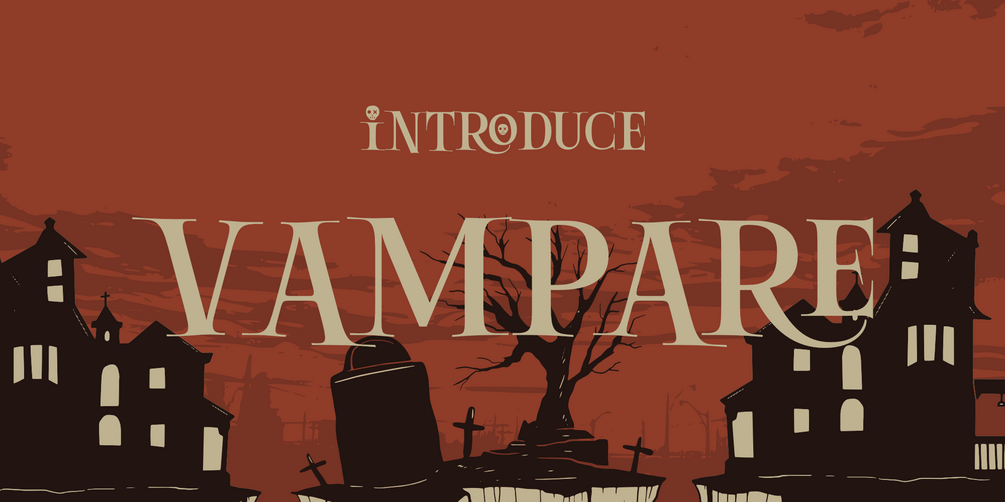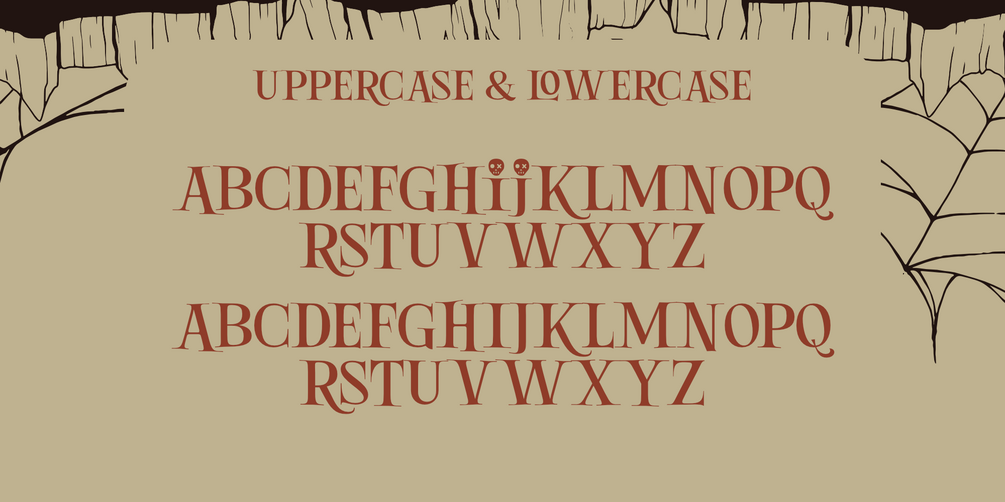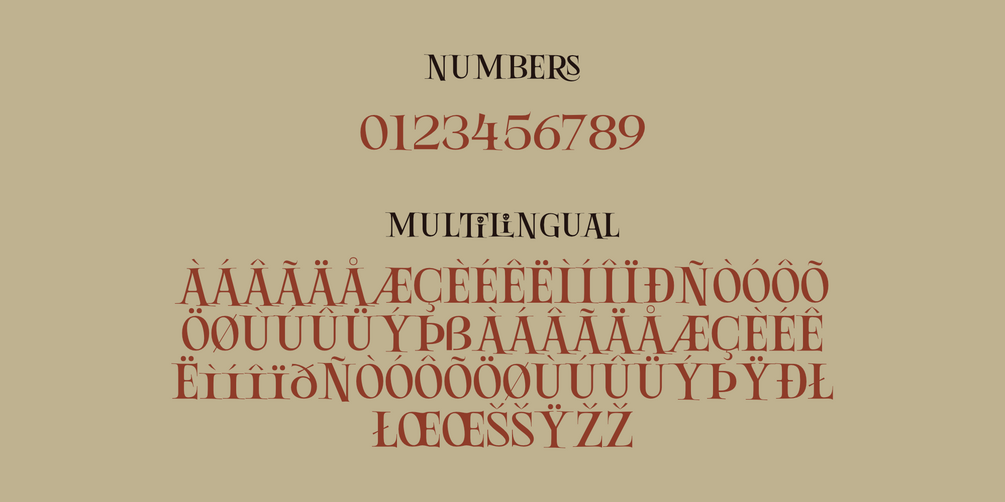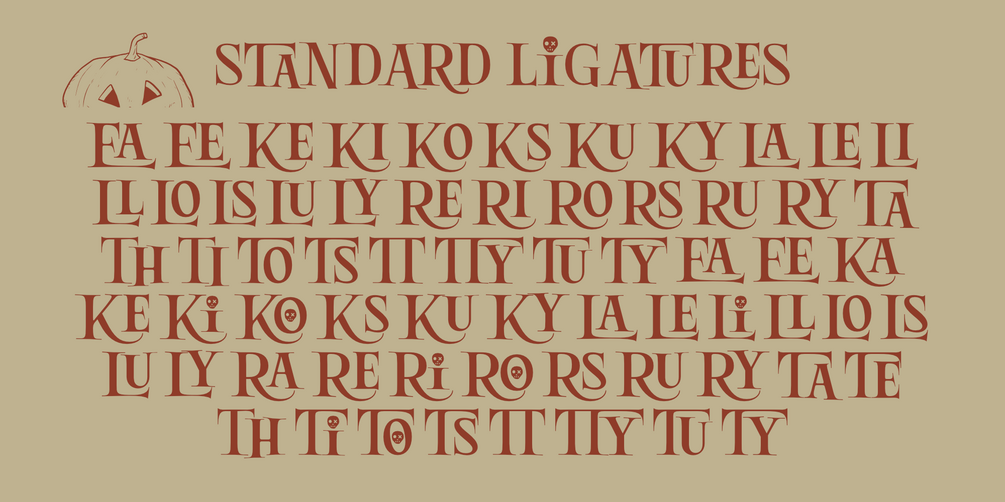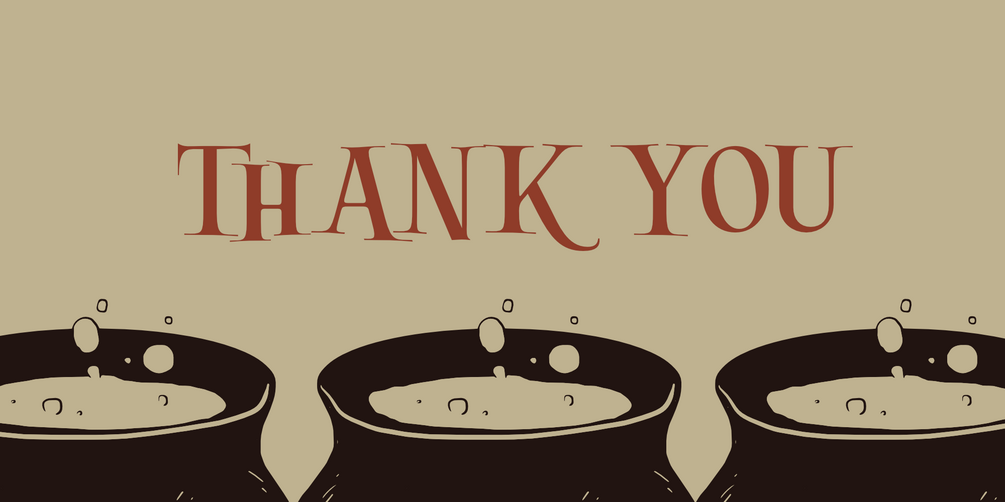
Vampare: Spooky Fun Display Font for Halloween
πŸ•ΈοΈ Vampare: Spooky Fun Display Font for Halloween πŸŽƒ
Vampare is a Halloween-themed display font that brings a spooky πŸ‘», cheerful 😊, and fun πŸŽ‰ vibe to your designs. Carefully crafted to add a unique touch ✨ to your projects, Vampare comes with a variety of excellent features:
• πŸ”€ Uppercase & lowercase letters
• πŸ”’ Numbers & punctuation
• 🌐 Multilingual support
• 🧩 OpenType features & ligatures for creative flair
This font is perfect for various design projects, such as:
• πŸ“’ Advertising & branding
• πŸ“¦ Product and packaging designs
• πŸ“š Magazines, books, or cover titles
• 🏷️ Special events, labels, and much more!
Add a playful creepiness 😈 to your creations with Vampare Font Halloween!